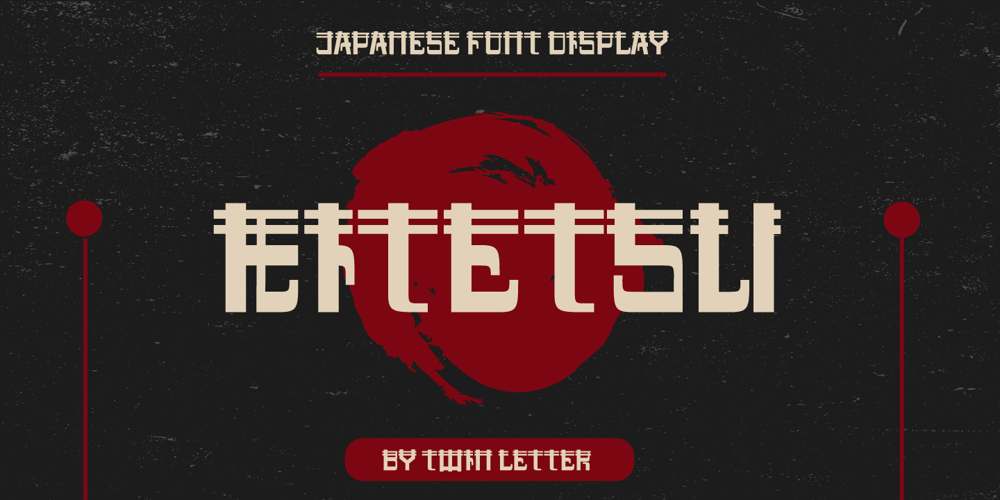
Kitetsu Faux
Kitetsu Faux font
Kitetsu Faux Font Family was designed by Rozikan and published by Twinletter. Kitetsu Faux contains 1 styles and family package options. Kitetsu is a spoof Japanese typeface that we created especially for those of you who need writing for a Japanese-themed design. Of course, this typeface is also very attractive when used for other graphic display purposes.If you choose this typeface, your project will leave an impression on your audience because of its unique, abstract, and different shape, which will set it apart from the rest.Logotypes, food banners, branding, brochure, posters, movie titles, book titles, quotes, and more may all benefit from this font.Of course, using this font in your various design projects will make them excellent and outstanding; many viewers are drawn to the striking and unusual graphic display.Start utilizing this typeface in your projects to make them stand out.